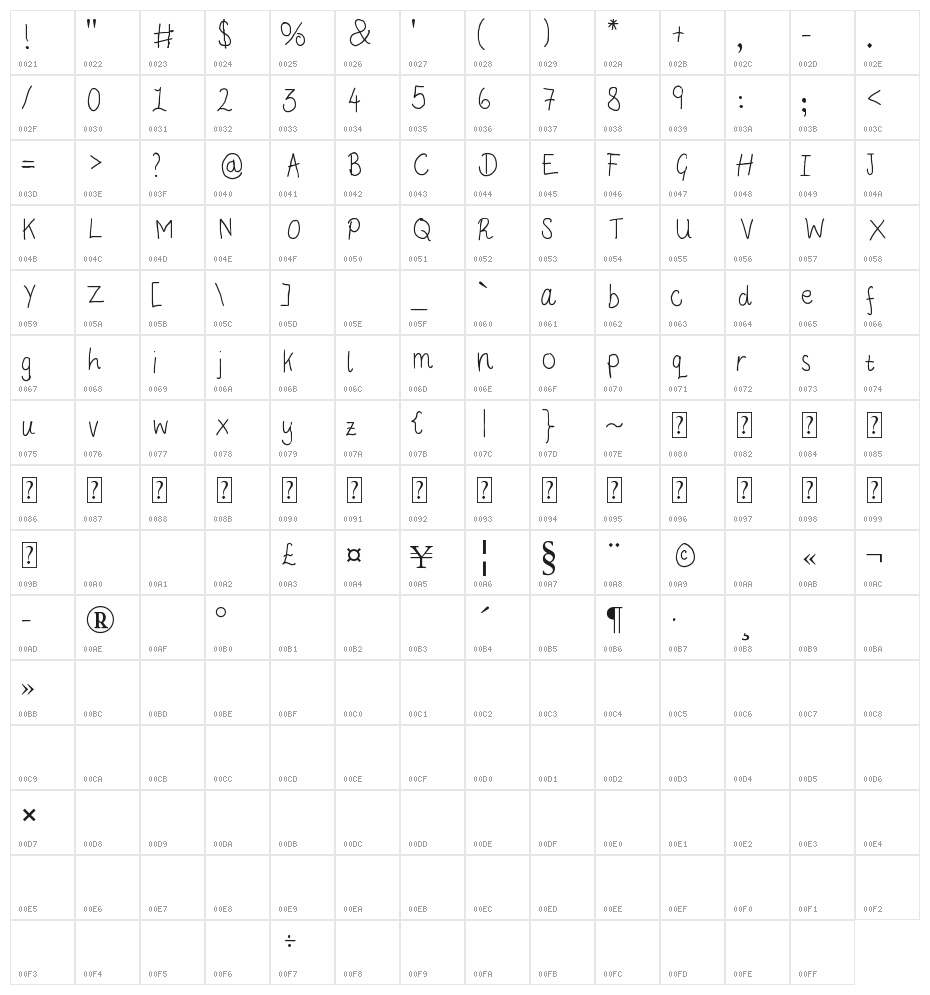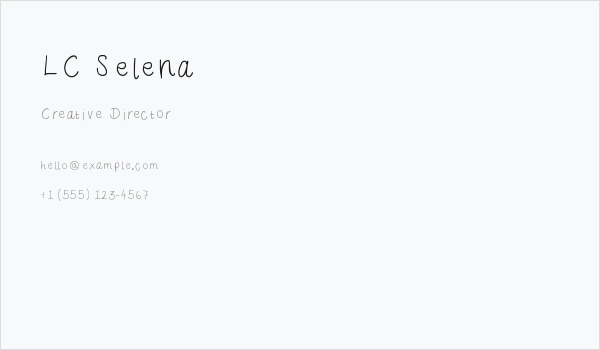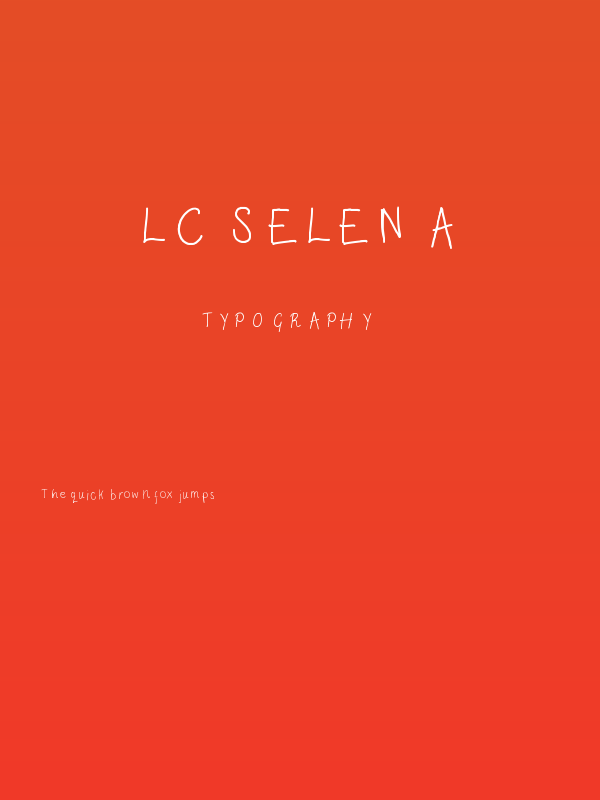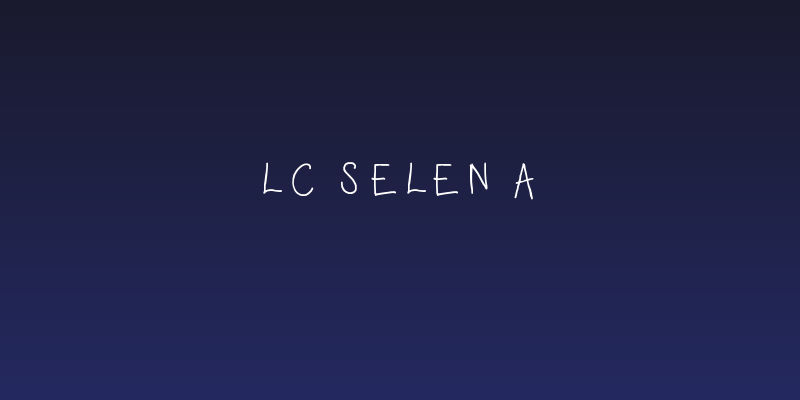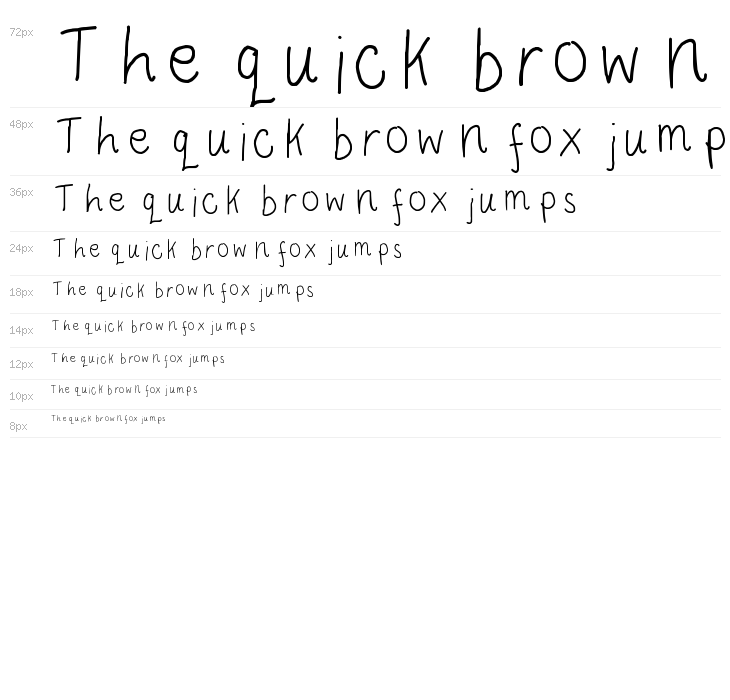
LC Selena Font
LC Selena Description
This font features a playful and informal handwritten style, characterized by its irregular strokes and slightly tilted letters. The uppercase letters are tall and narrow, with a whimsical flair that adds a touch of personality. The lowercase letters maintain a consistent flow, with rounded edges and a casual appearance. Numbers are clear and legible, matching the overall handwritten aesthetic. Special characters are creatively designed, complementing the font's informal style. This font exudes a friendly and approachable vibe, making it suitable for projects that require a personal touch.
| Use Case | Headlines, Informal text, Personal projects |
| Proposed Projects | Ideal for greeting cards, children's books, casual invitations, and personal blogs. |